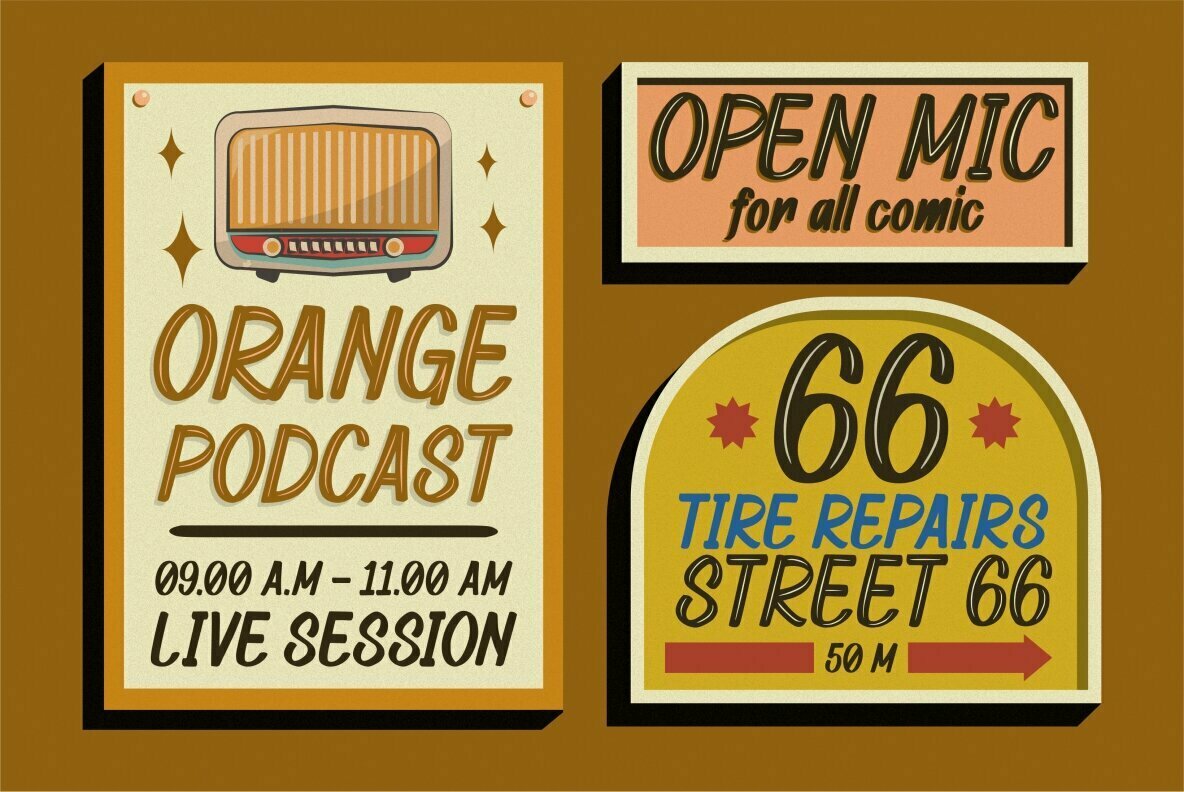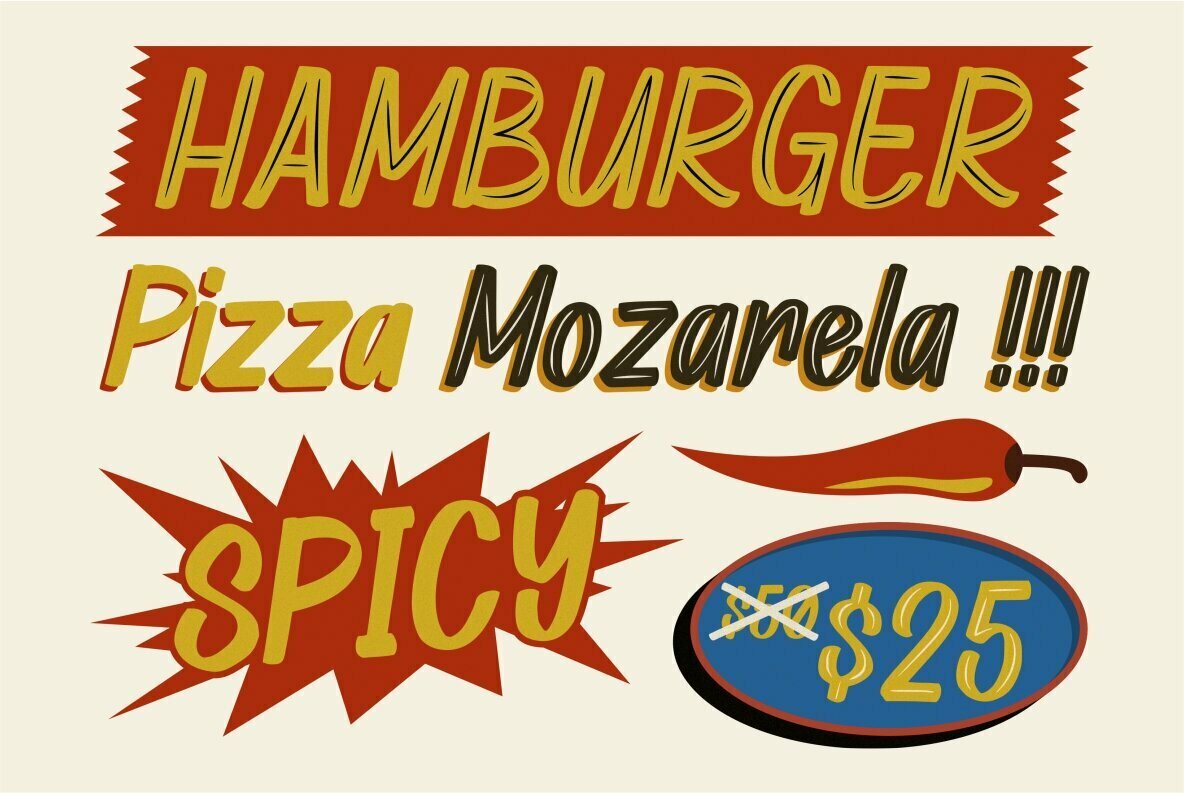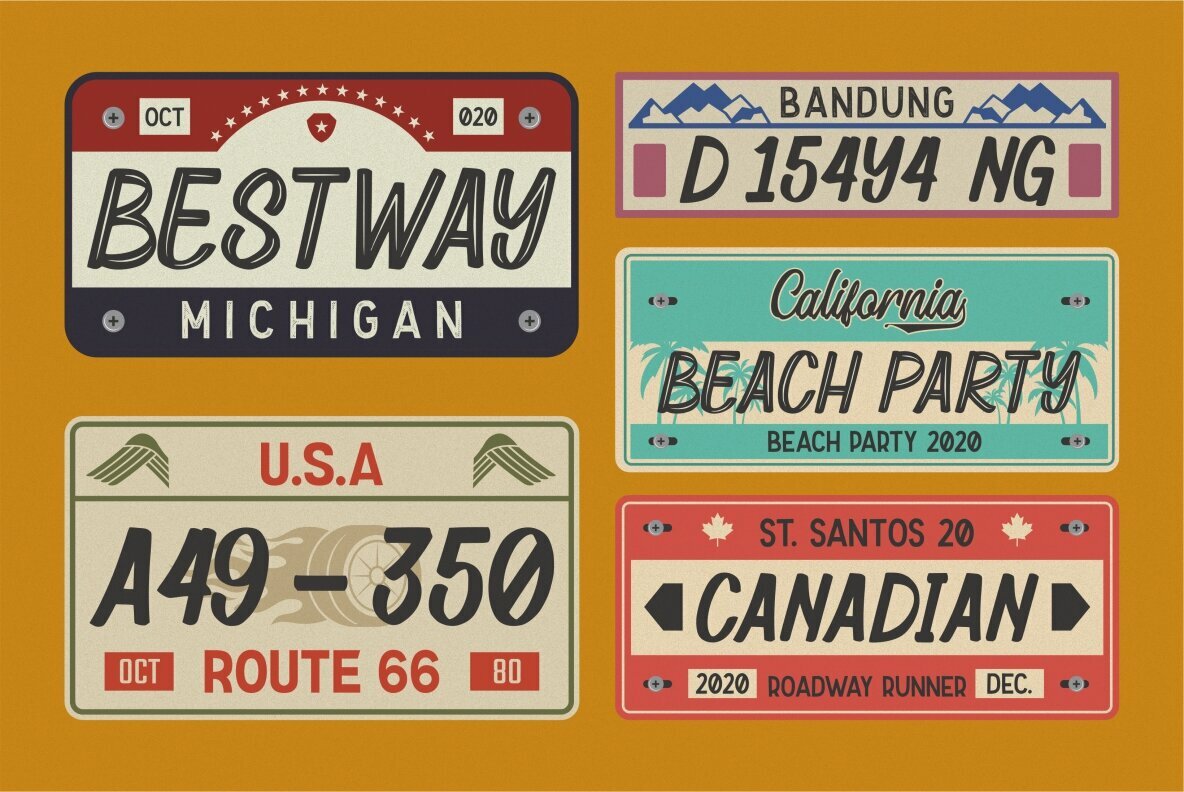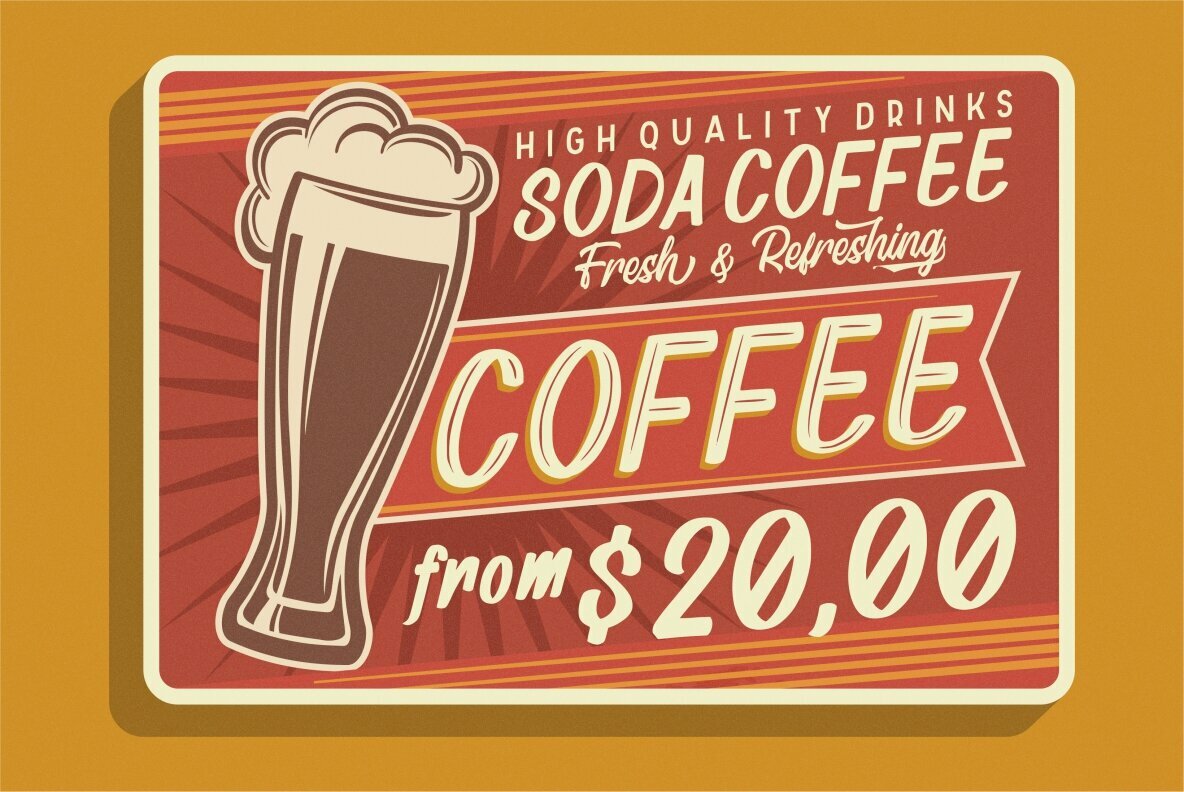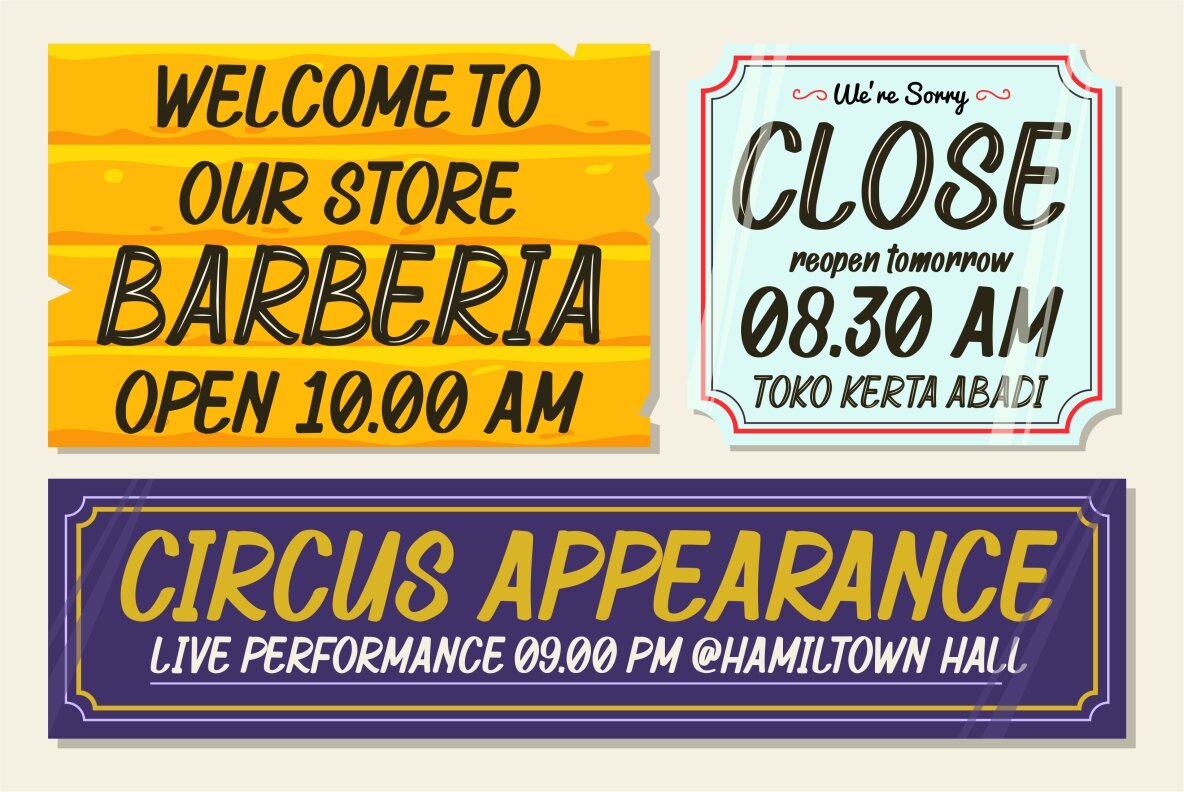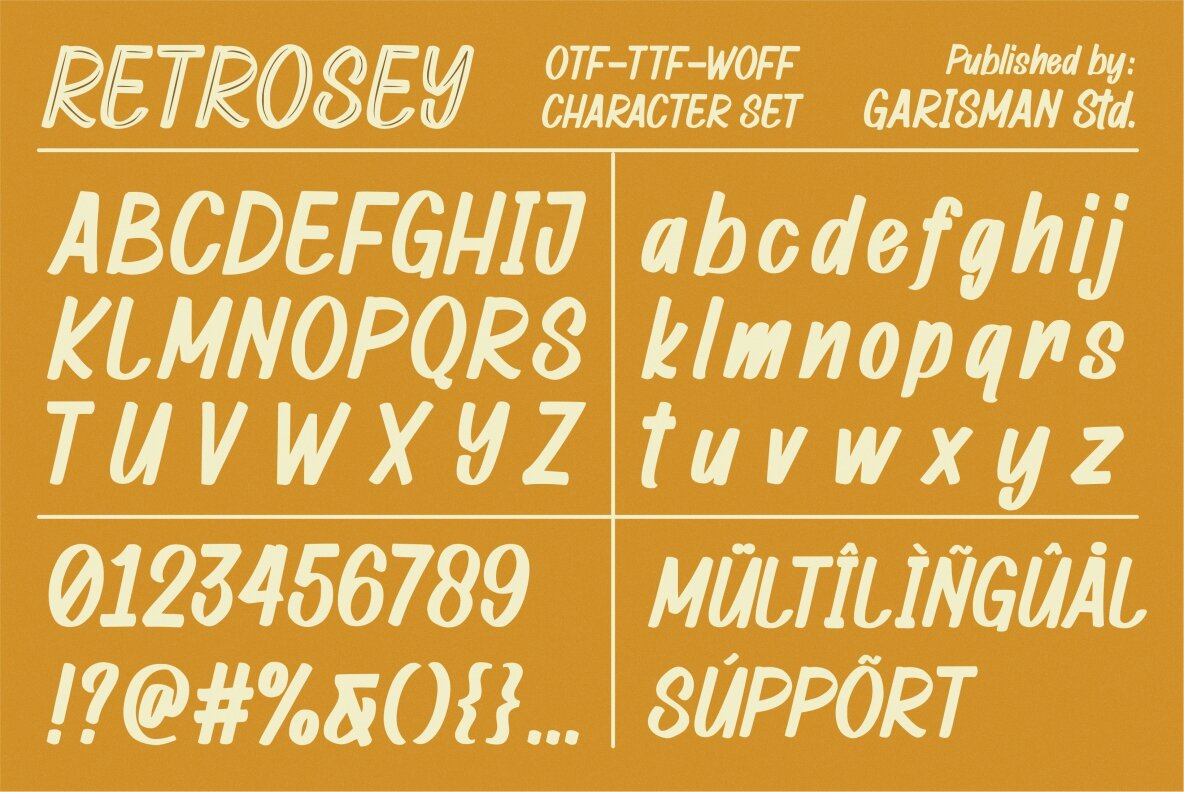
Retrosey Font
Welcome to Retrosey. Inspired by the old style of letters used for signs in the 60s era, Retrosey was born with two main styles; Retrosey One (Bold) and Retrosey Two (Inline).
Born with the old spirit and evoking new styles from the past. Retrosey is able to fulfill your desire to feel the era again. Make it in your style with happiness!
You can use Retrosey for the needs of making signs, sign painting, advertisements, price lists in stores, menu lists, posters, movie titles, book covers, main text in titles, clothing designs, or whatever you want by returning to the 60s era.
- Retrosey One and Retrosey Two
- All glyphs with Caps styles
- Numerals & Punctuations
- Multilingual characters (support for 26 languages)